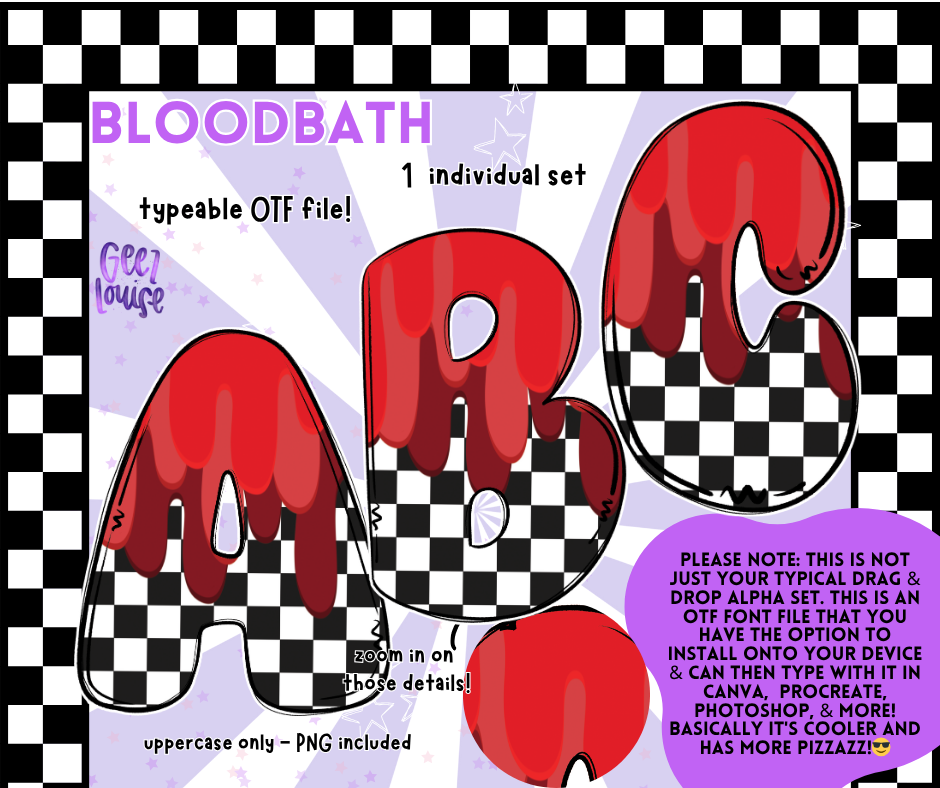
Bloodbath Alpha – Dripping Checkered OTF Font & PNG Set
🩸 Bold. Creepy. Totally killer.
The Bloodbath Alpha brings your designs to life (…or death 👀) with a bold checkered pattern topped with realistic dripping “blood” accents.
This isn’t your average drag-and-drop alpha set — it’s a typeable OTF font and a PNG pack in one!
Perfect for Halloween designs, horror merch, spooky party invites, and more.